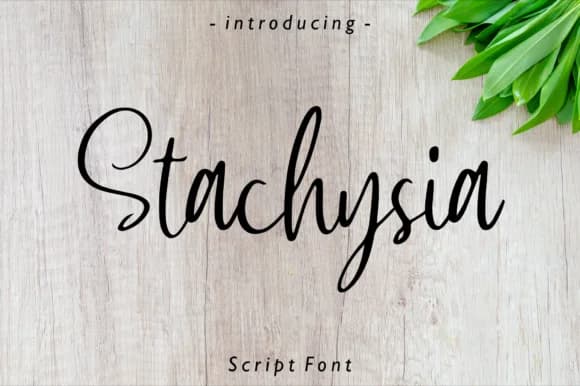
Stachysia flows with an intimate, hand-drawn warmth that immediately draws the eye. Designed by Fype Co., this handwritten script carries the charm of a personal letter or journal entry. The typeface's loose letterforms and natural rhythm make it ideal for capturing genuine emotion in ways that polished, sterile fonts simply cannot.
It excels in bridal stationery suites, where its organic elegance sets an unmistakably romantic tone without feeling overdone. Food and beverage labels benefit greatly from its approachable, lived-in personality, especially for artisanal products, small-batch chocolate packaging, and boutique skincare lines. Greeting cards gain instant authenticity and warmth, and social media graphics for lifestyle brands find a genuine voice through these flowing curves and generous spacing. Magazine feature titles and pull quotes also command attention when Stachysia leads the visual hierarchy, anchoring pages with personality.
The font's natural variation in letterforms (as you'd expect from a handwritten script) makes each use feel distinct rather than cookie-cutter. Pairing it with a clean, minimal sans-serif for body text creates an effective contrast that lets Stachysia's expressive voice shine without overwhelming readers with too much texture. This combination works beautifully across both digital and print applications. Find Stachysia on Creative Fabrica and give your next project that handmade touch.
Stachysia Font is a script font that shines as a display or heading face. Pair it with a clean sans-serif or serif font for body text β the contrast creates a clear hierarchy while the two styles stay balanced and easy to read.
Stachysia Font
by Fype Co.